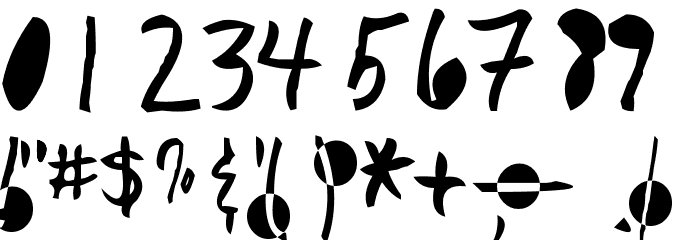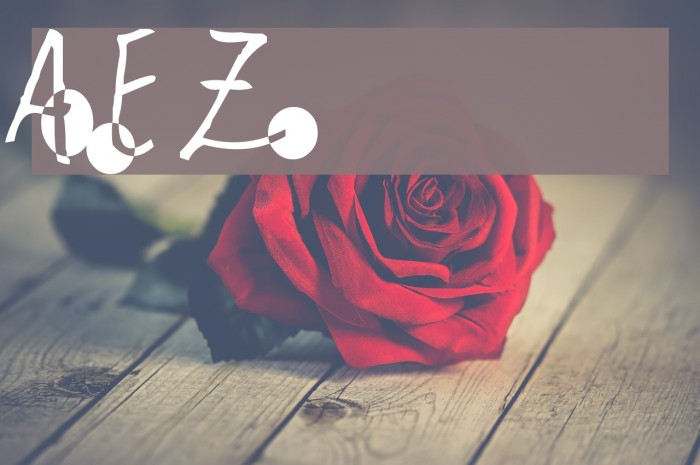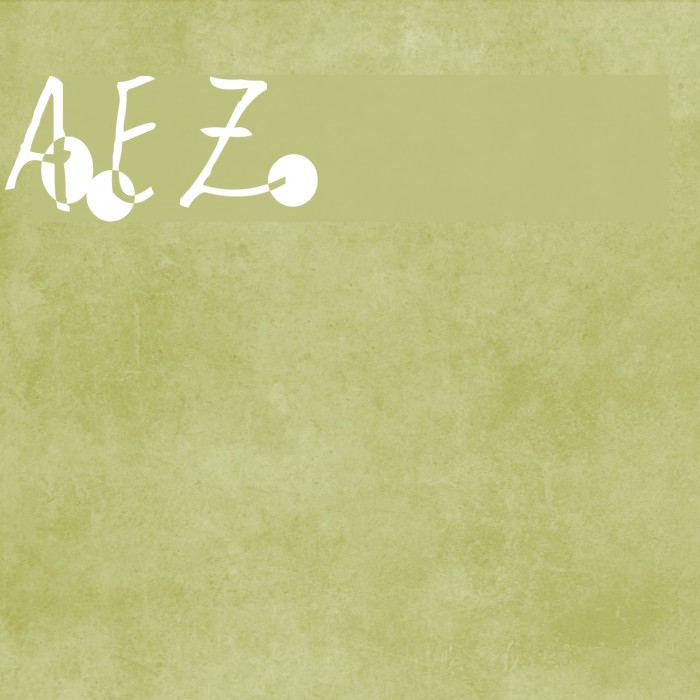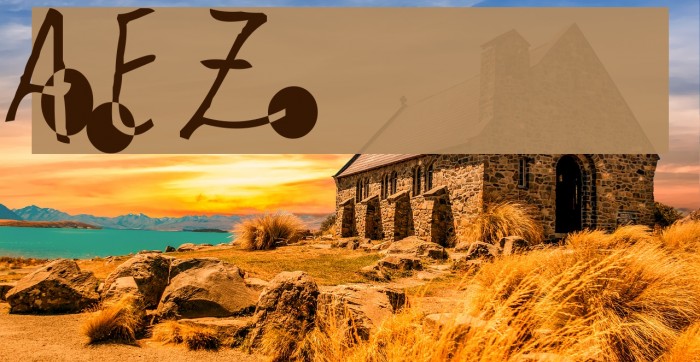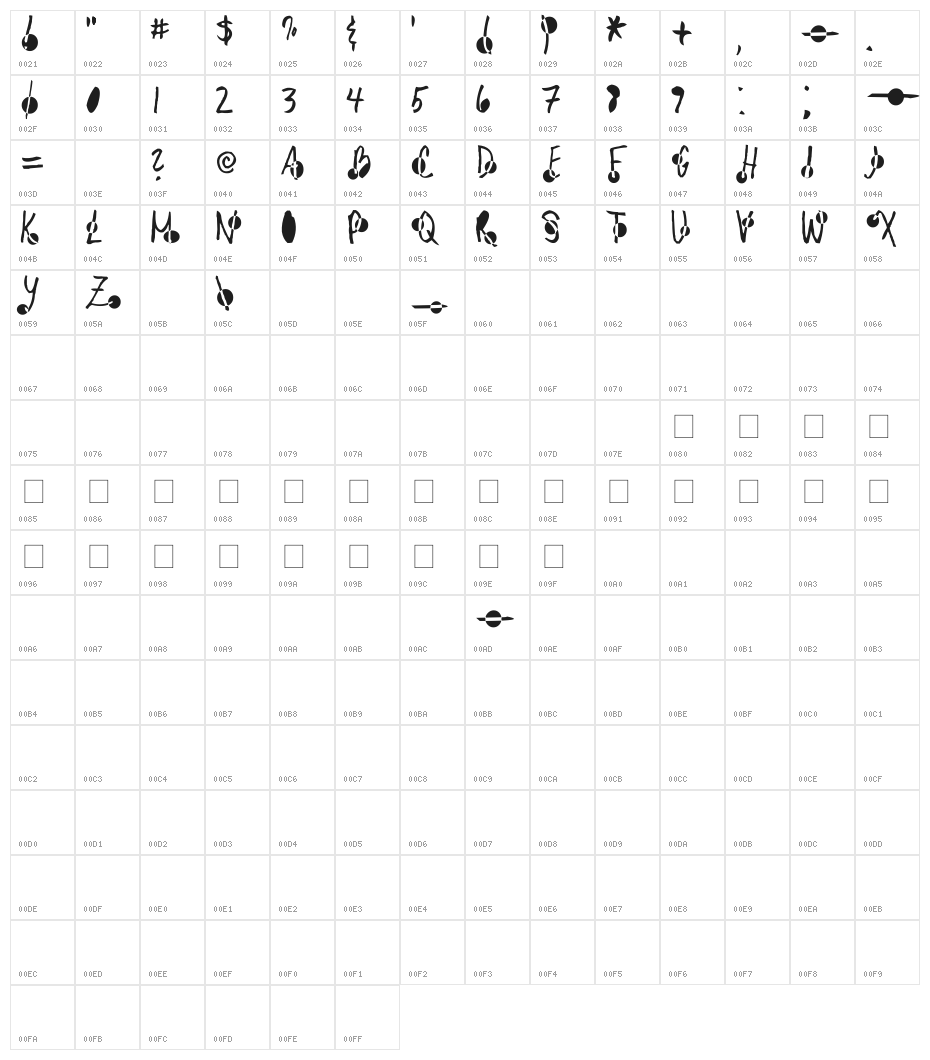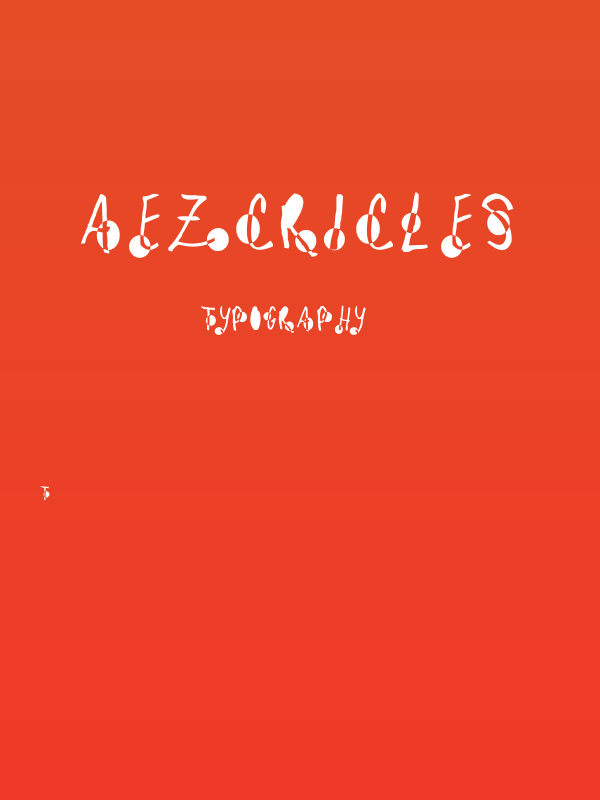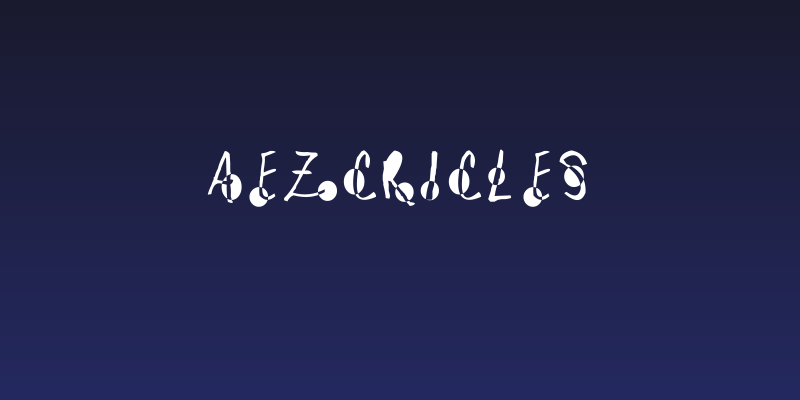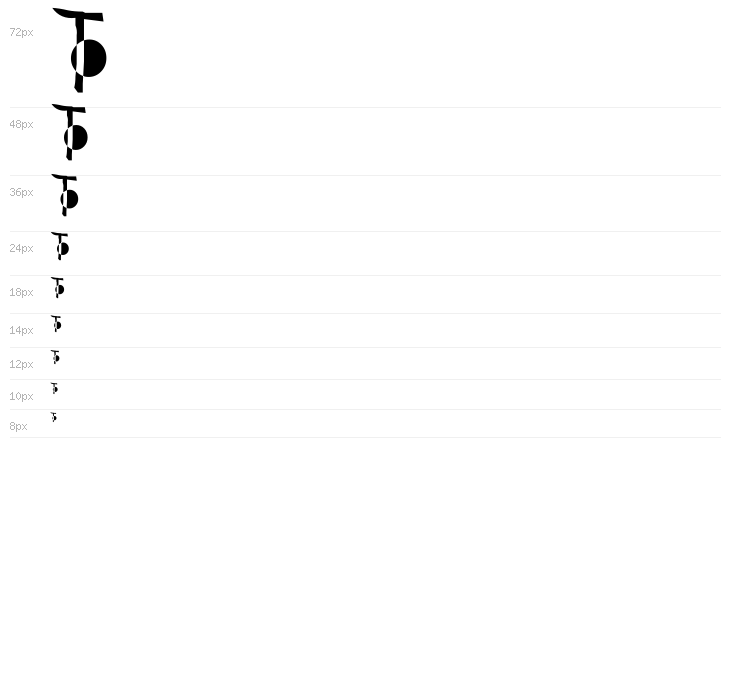
AEZcricles Font
This font features a unique and artistic style, characterized by its bold, brush-like strokes and playful circular elements integrated into each character. The uppercase letters are particularly striking, with exaggerated curves and loops that give them a dynamic, flowing appearance. The lowercase letters maintain this fluidity, creating a cohesive look across the alphabet. Numbers and special characters follow the same design principles, ensuring consistency throughout. The overall effect is both modern and whimsical, making it suitable for creative and eye-catching designs.
A bold, artistic font with brush-like strokes and playful circular elements.
- Proposed Projects: Ideal for creative projects such as posters, album covers, branding for artistic ventures, or any design that requires a bold, eye-catching typeface.
- Overall Style: Modern, Whimsical